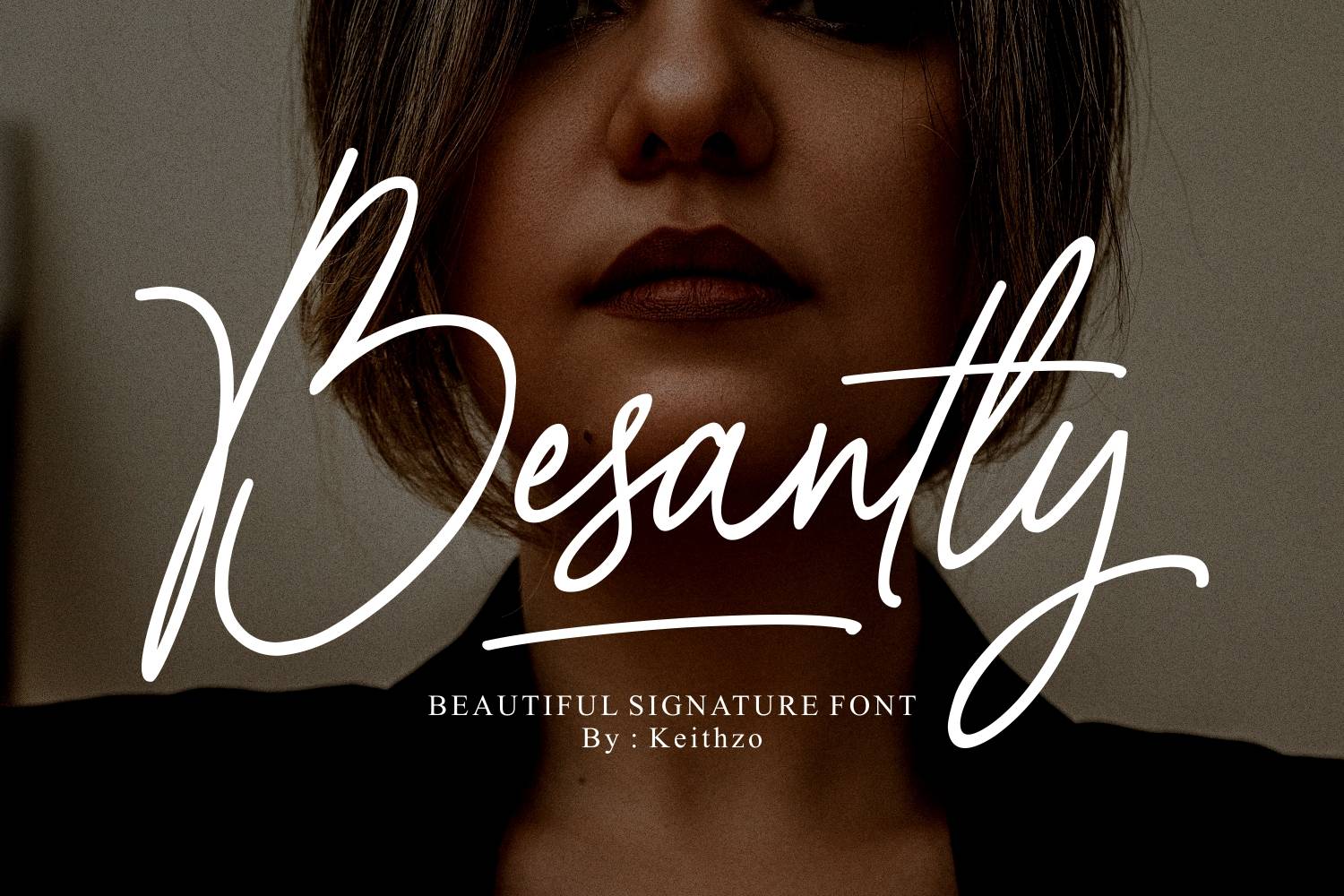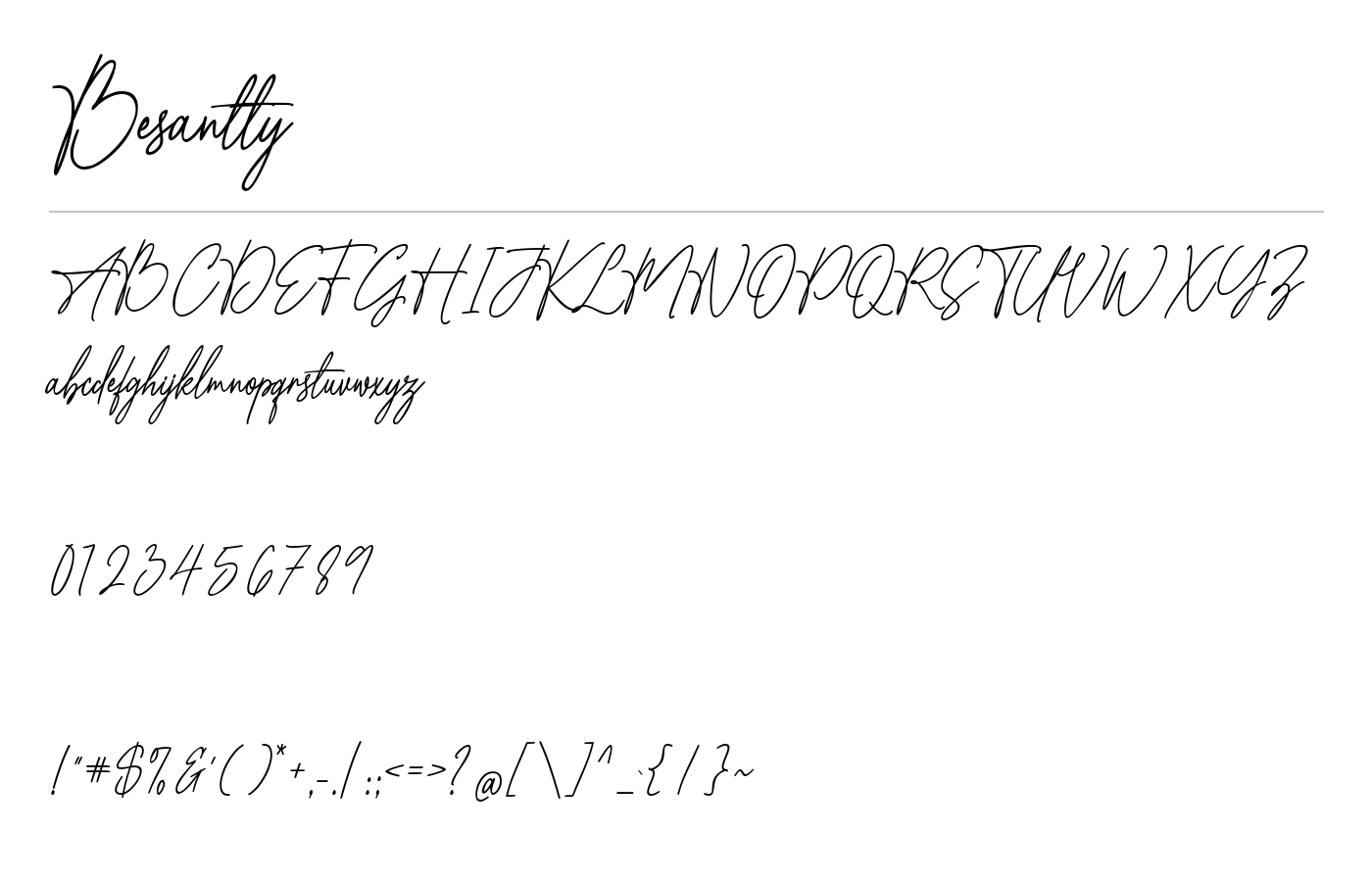
Besantty is a delicate, elegant script font with a slender, handwritten style that exudes a personal and sophisticated charm. Its thin, flowing strokes and tall, airy forms make it ideal for branding, invitations, and fashion-related designs where a touch of grace and refinement is desired. This font works beautifully for logos and headlines that seek a modern, stylish, and intimate feel.
Besantty Font
About Besantty Font
| Font family | Besantty Font |
| Designer | Keithzo |